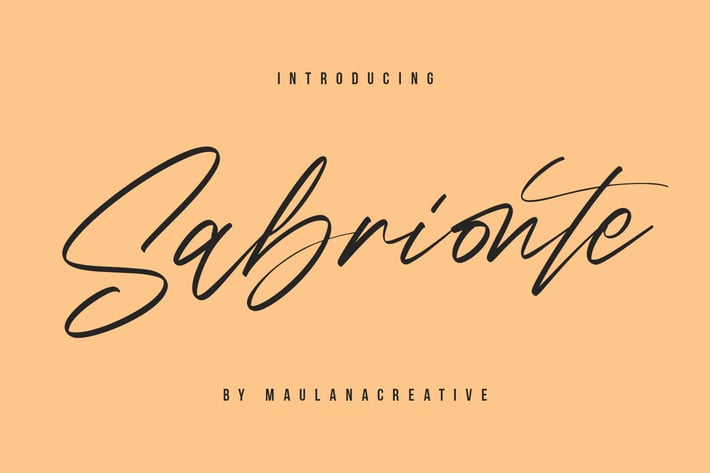
Sabrionte Script Font
Give your designs an authentic brush handcrafted feel. Sabrionte is perfectly suited to signature, stationery, logo, typography quotes, magazine or book cover, website header, flyer, clothing, branding, packaging design and more.